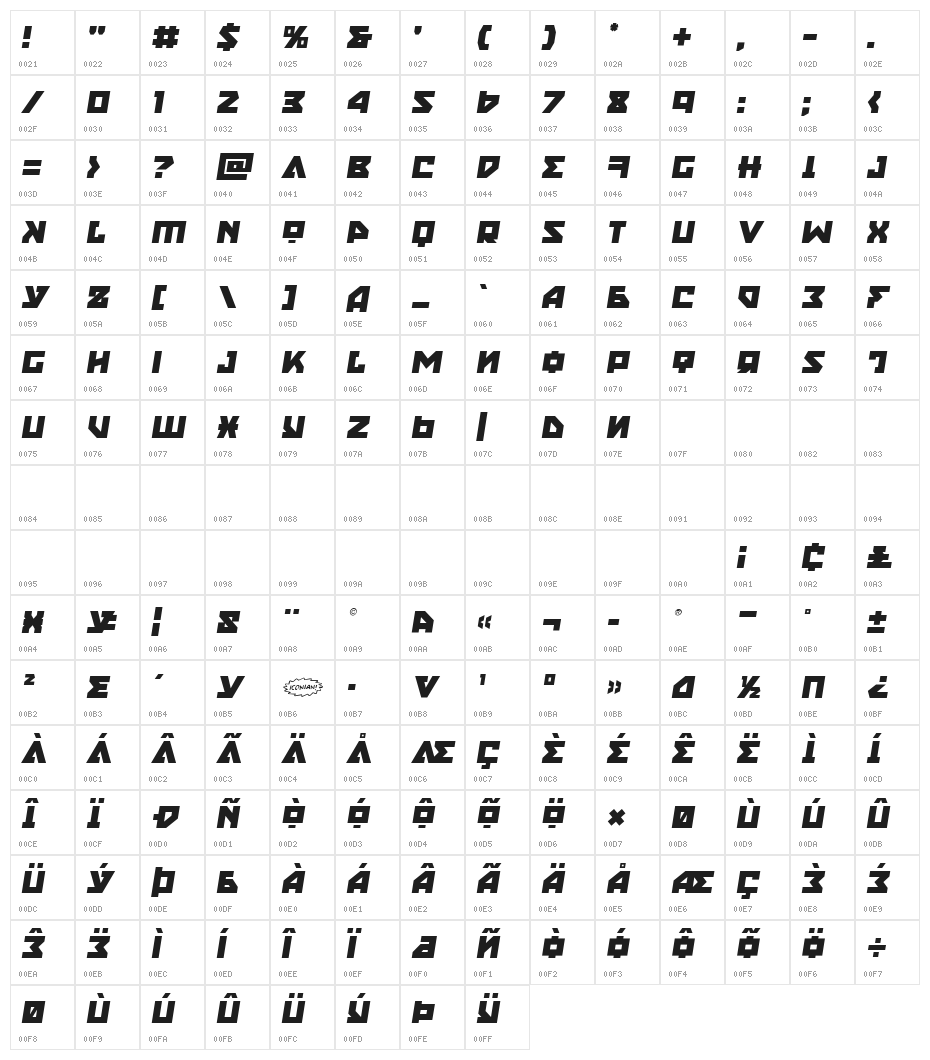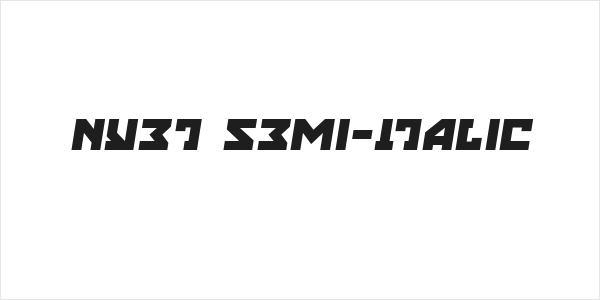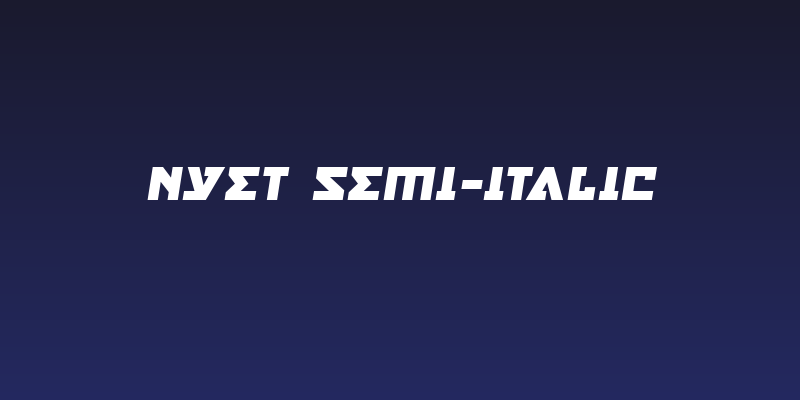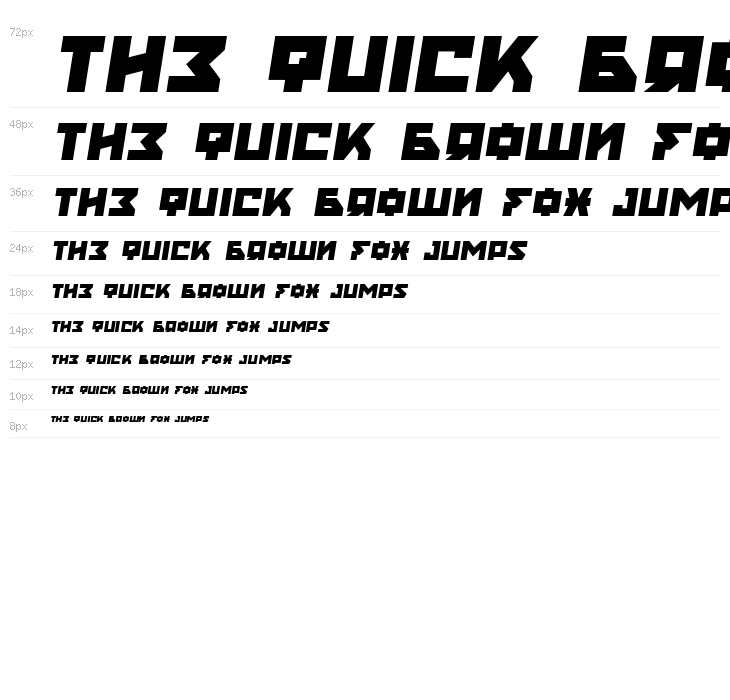
Nyet Semi-Italic Font
Nyet Semi-Italic Description
This font features a bold and angular design, characterized by sharp edges and a geometric structure. The letters are slightly slanted, giving it a dynamic and forward-moving appearance. The uppercase and lowercase letters maintain a consistent style, with a strong emphasis on diagonal lines and pointed corners. The numerals and special characters follow the same aesthetic, ensuring uniformity across all glyphs. This font's unique style makes it stand out, offering a modern and edgy look suitable for various creative applications.